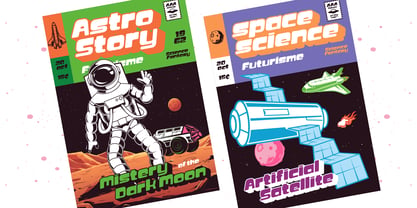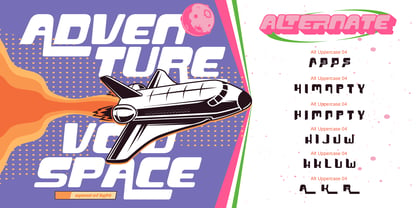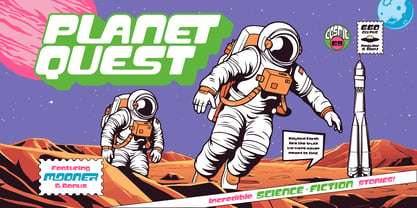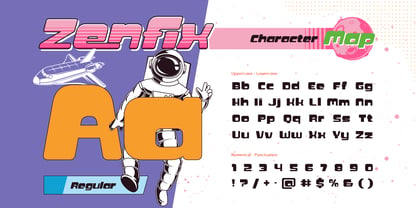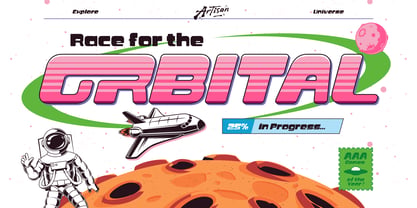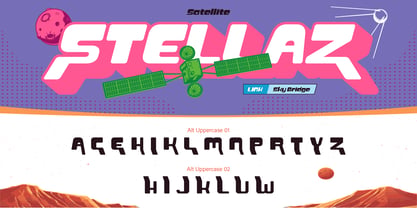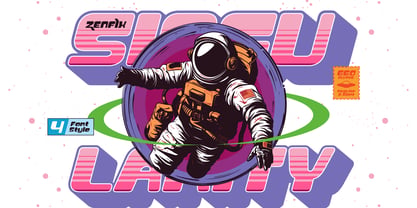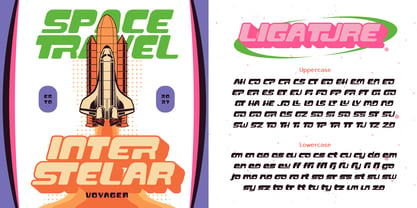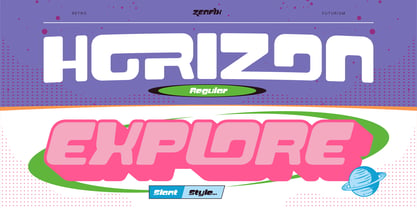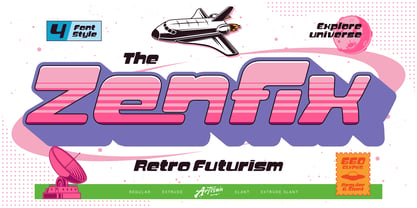
Zenfix
The Zenfix Font Family was designed by Meidy Meichico and published by Artisan Themes. Zenfix contains 4 styles and family package options. More about this family
Step into the future with Zenfix, a bold retro futuristic display font inspired by classic sci-fi aesthetics, space exploration, and vintage futuristic design. With its chunky shapes, rounded edges, and striking extrude style, Zenfix brings a perfect blend of nostalgia and modern energy into your creative projects. Designed to stand out, this font delivers a strong visual impact, making it ideal for eye-catching headlines, posters, branding, and anything that needs a futuristic twist. Whether you're creating space-themed designs, retro posters, or bold branding visuals, Zenfix gives your work that iconic “retro future” look instantly. Zenfix is highly versatile and works great for: Sci-fi & space-themed posters, Retro futuristic branding, Logo design, YouTube thumbnails, Game titles & UI, Comic covers & editorial design, Merchandise (t-shirts, stickers, etc.), Social media graphics Features: A - Z set (Uppercase & Lowercase), Number, Punctuation, Alternates, Ligatures, Multilingual